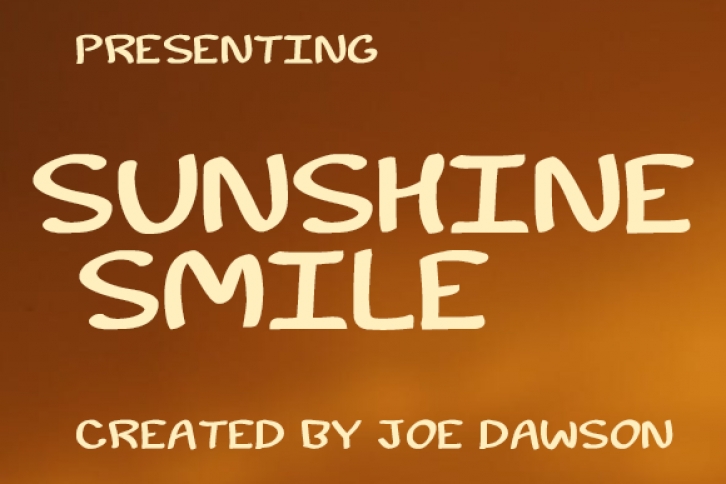
Sunshine Smile is a playful handwritten font. It features a relaxed style that makes it perfect for a wide range of designs. Get creative with its unique style and use it to brighten up your products, posters and projects!